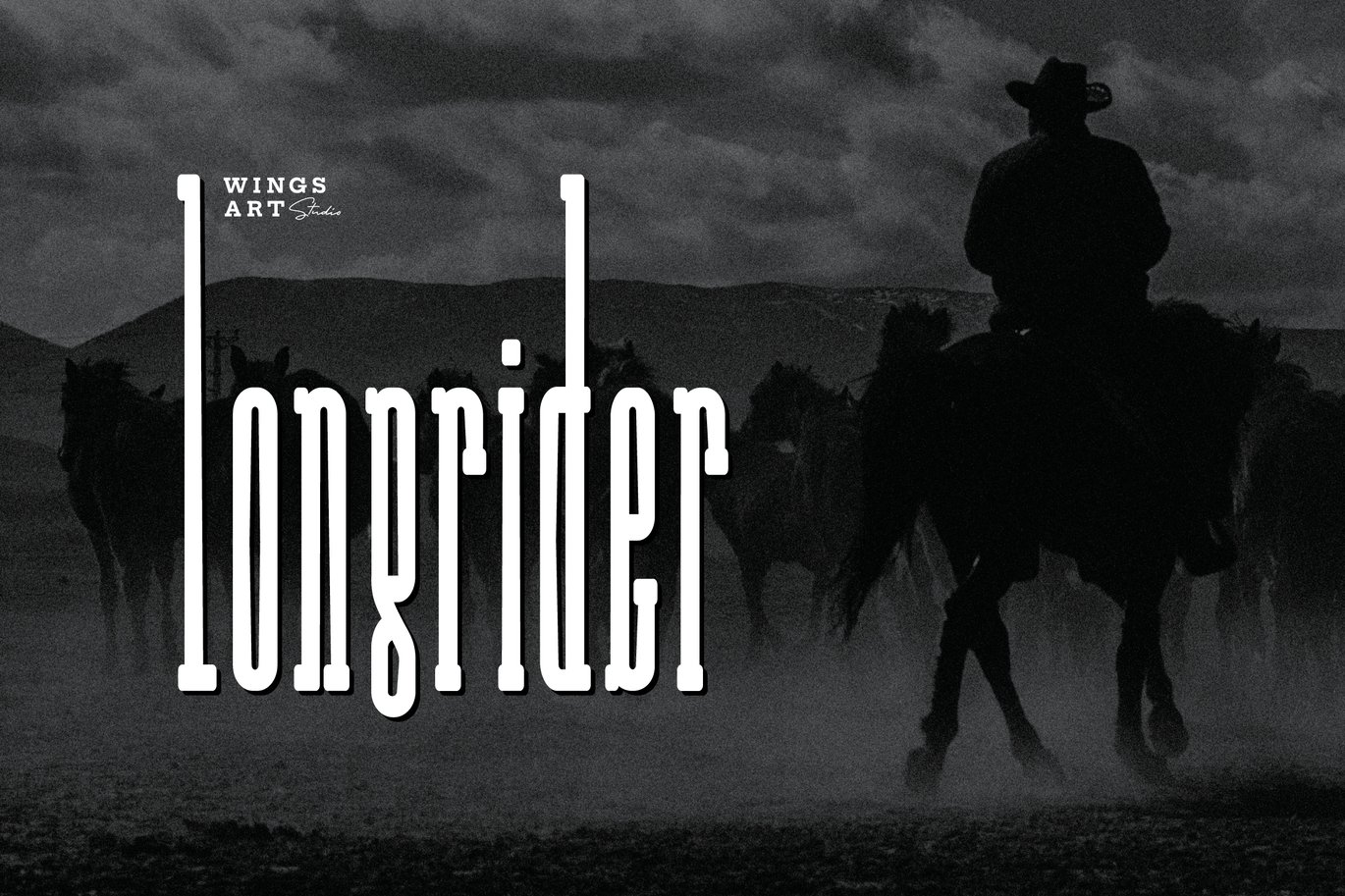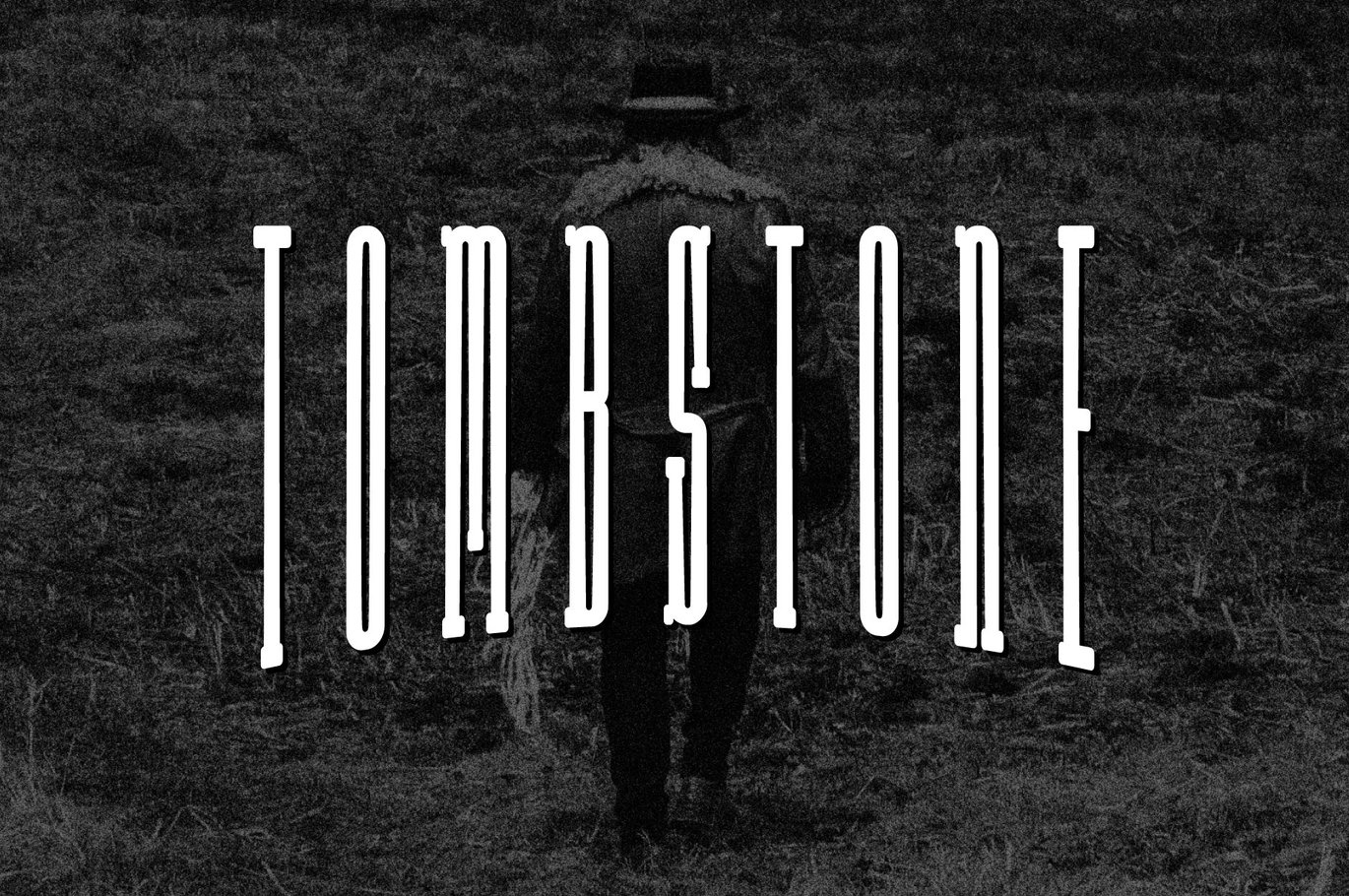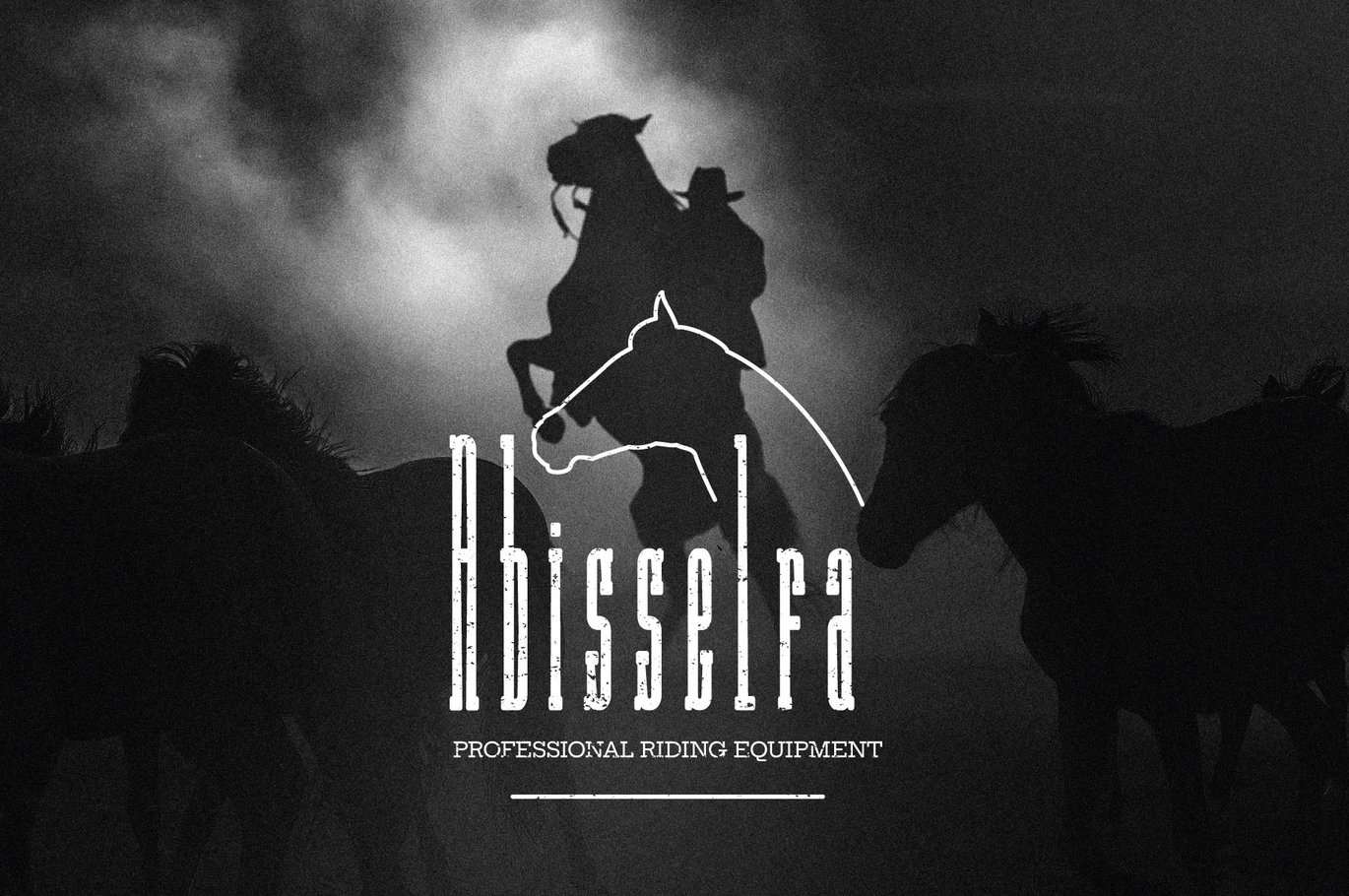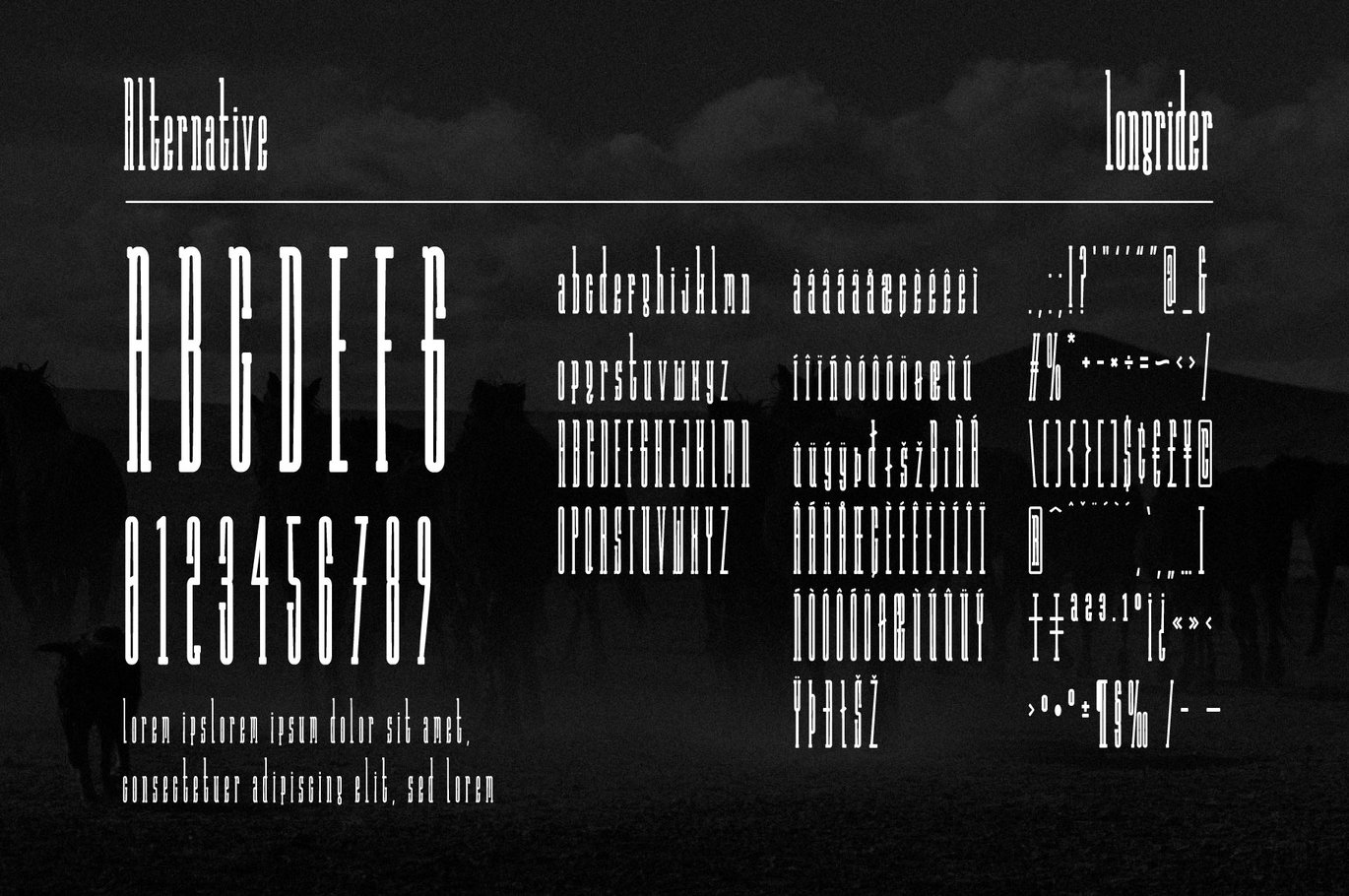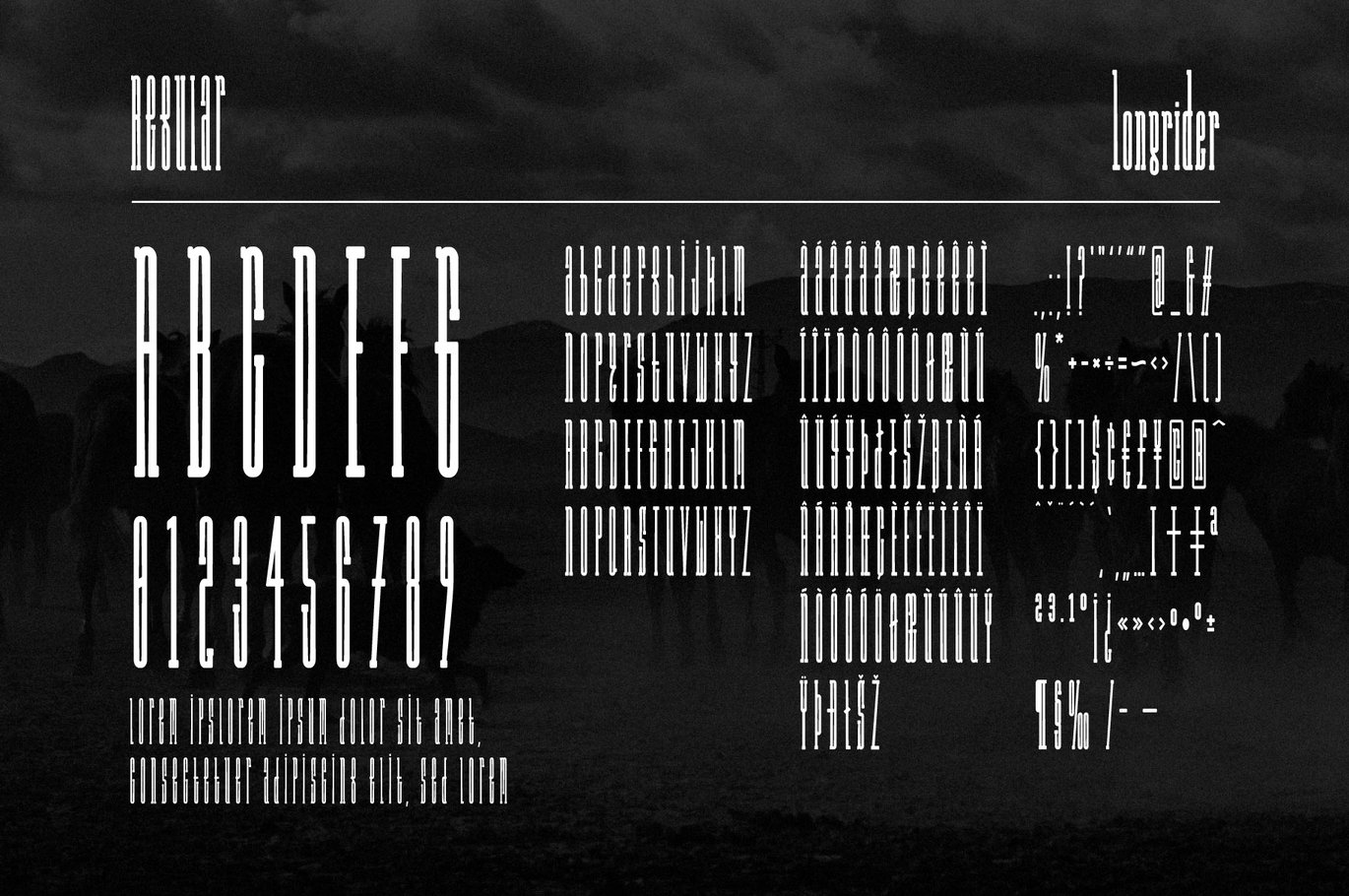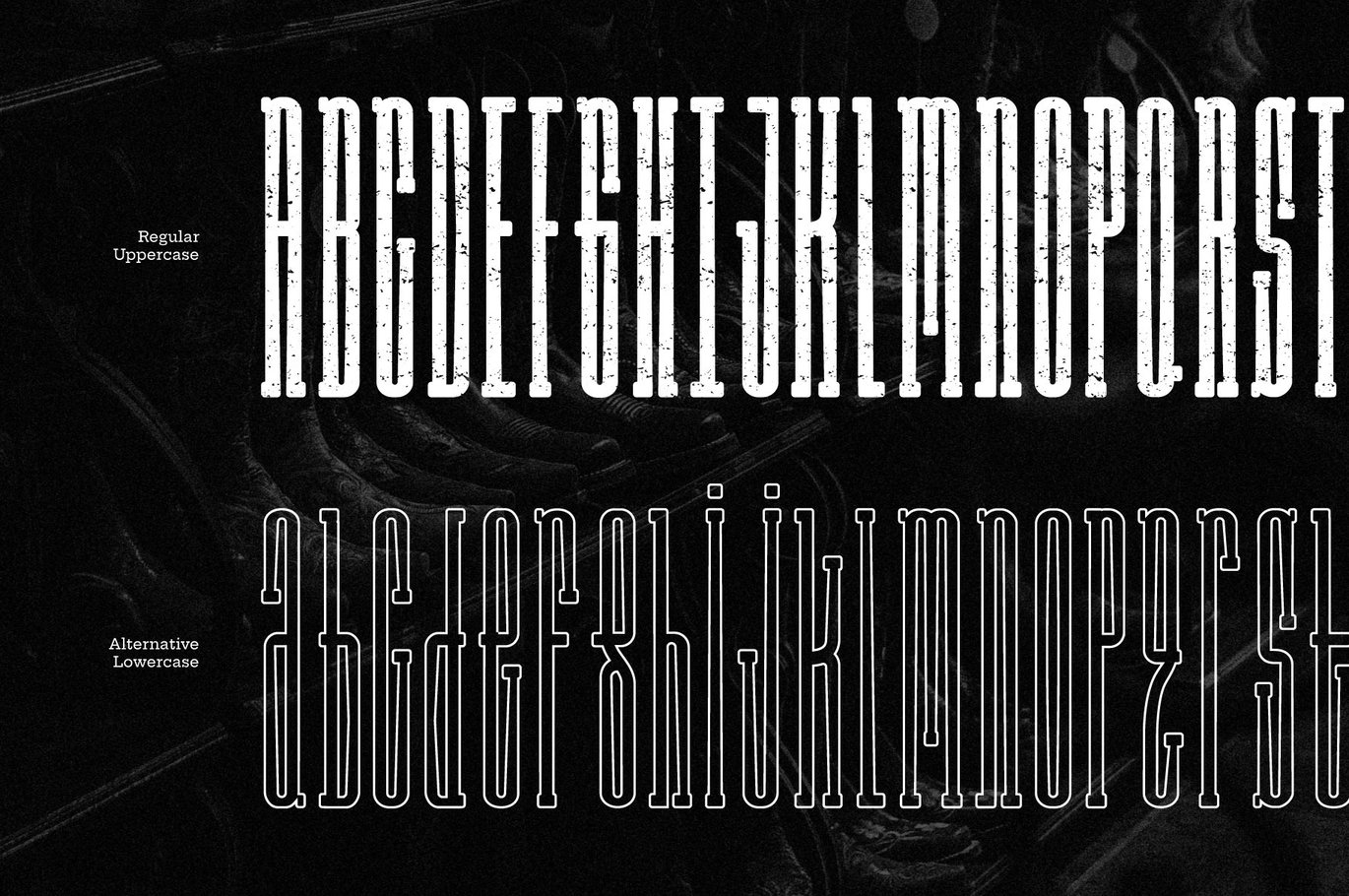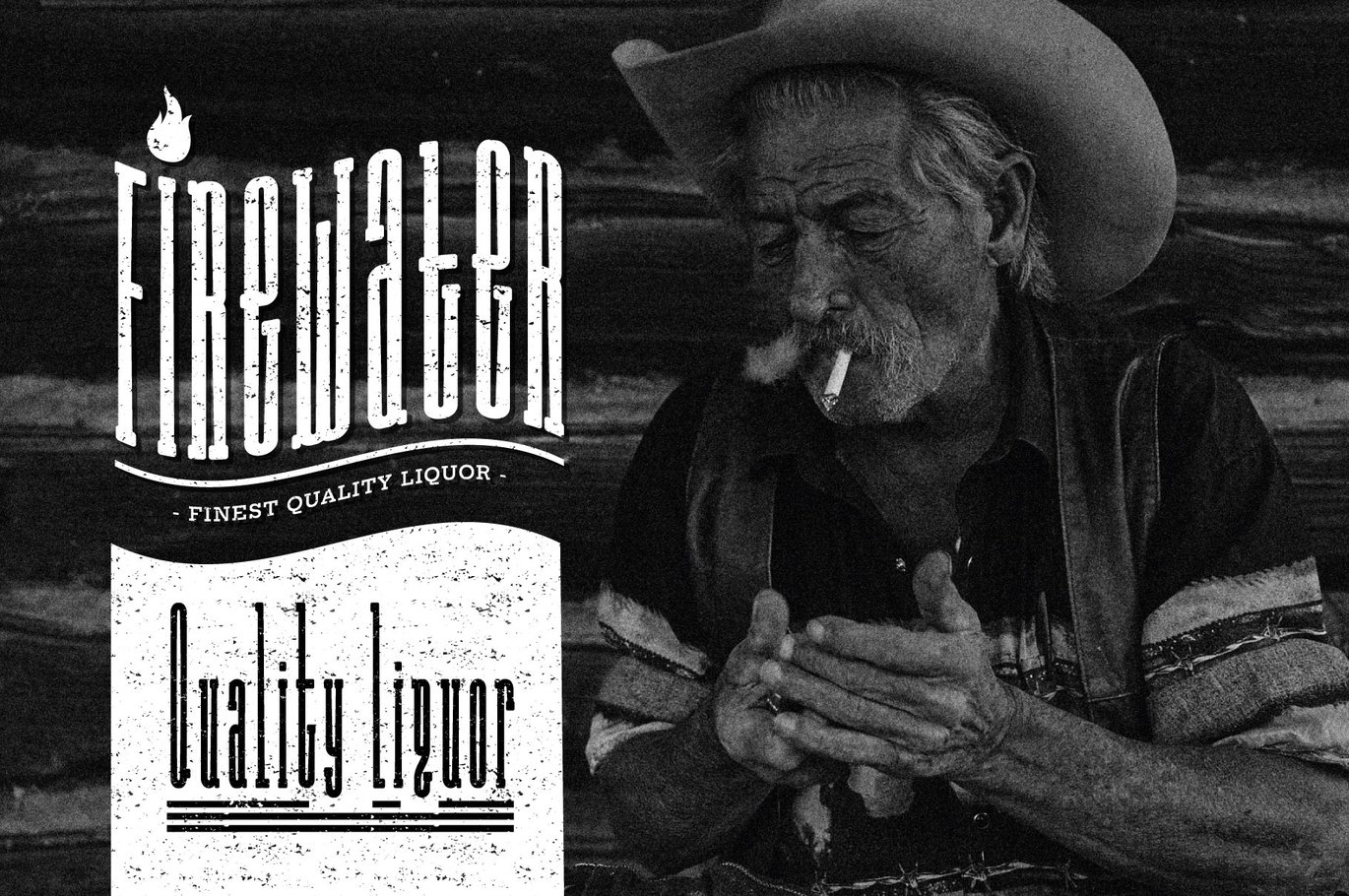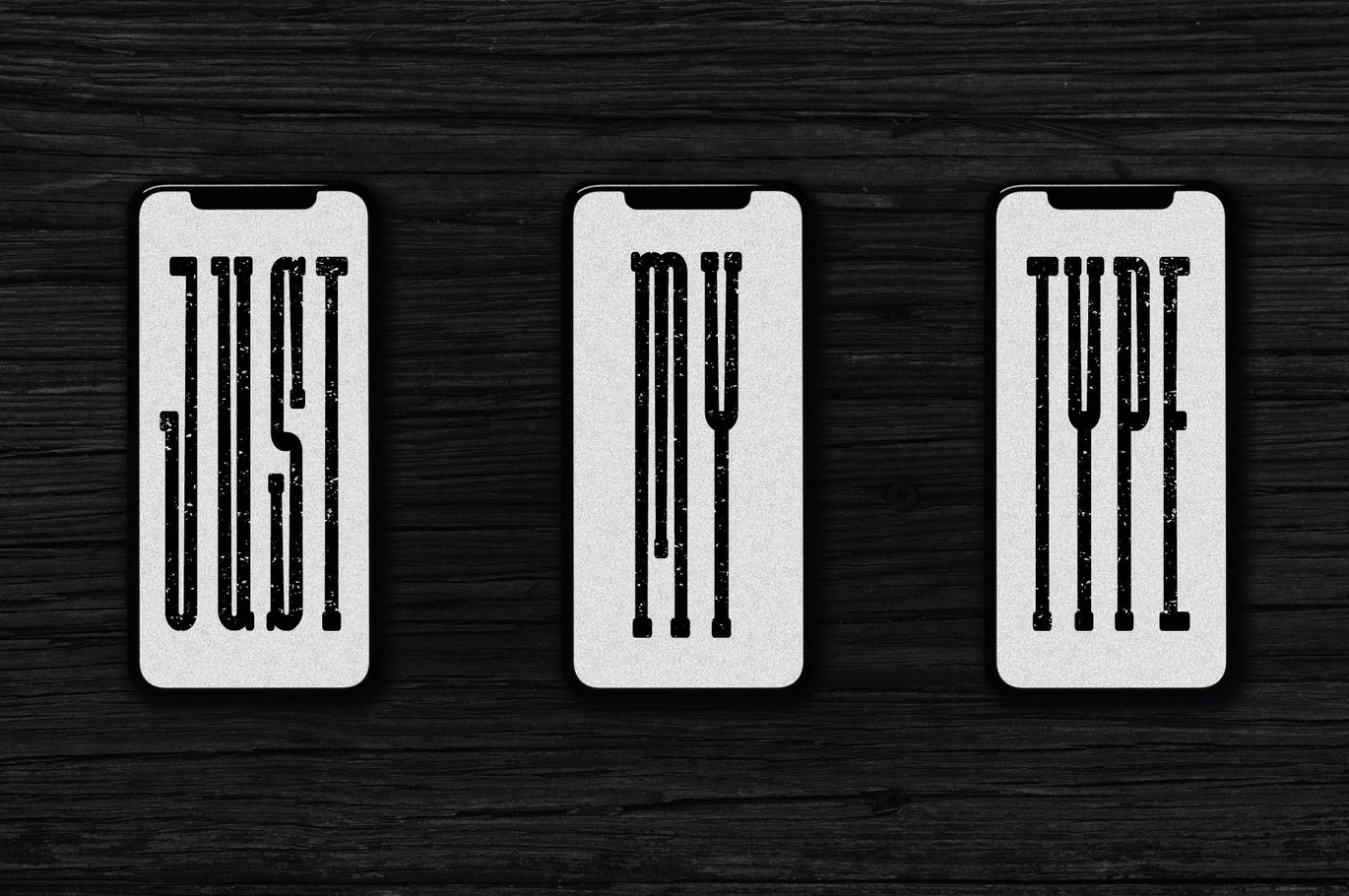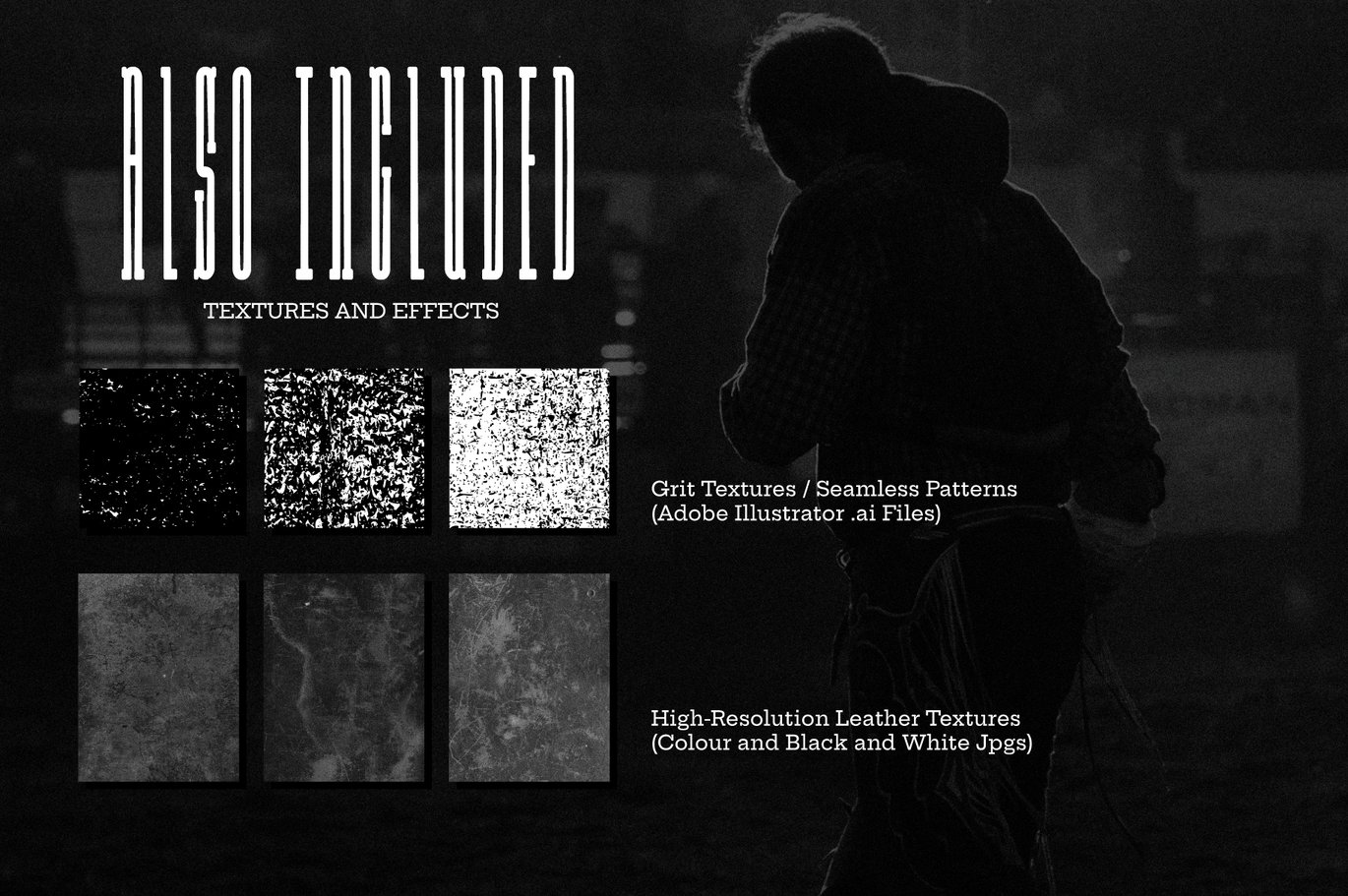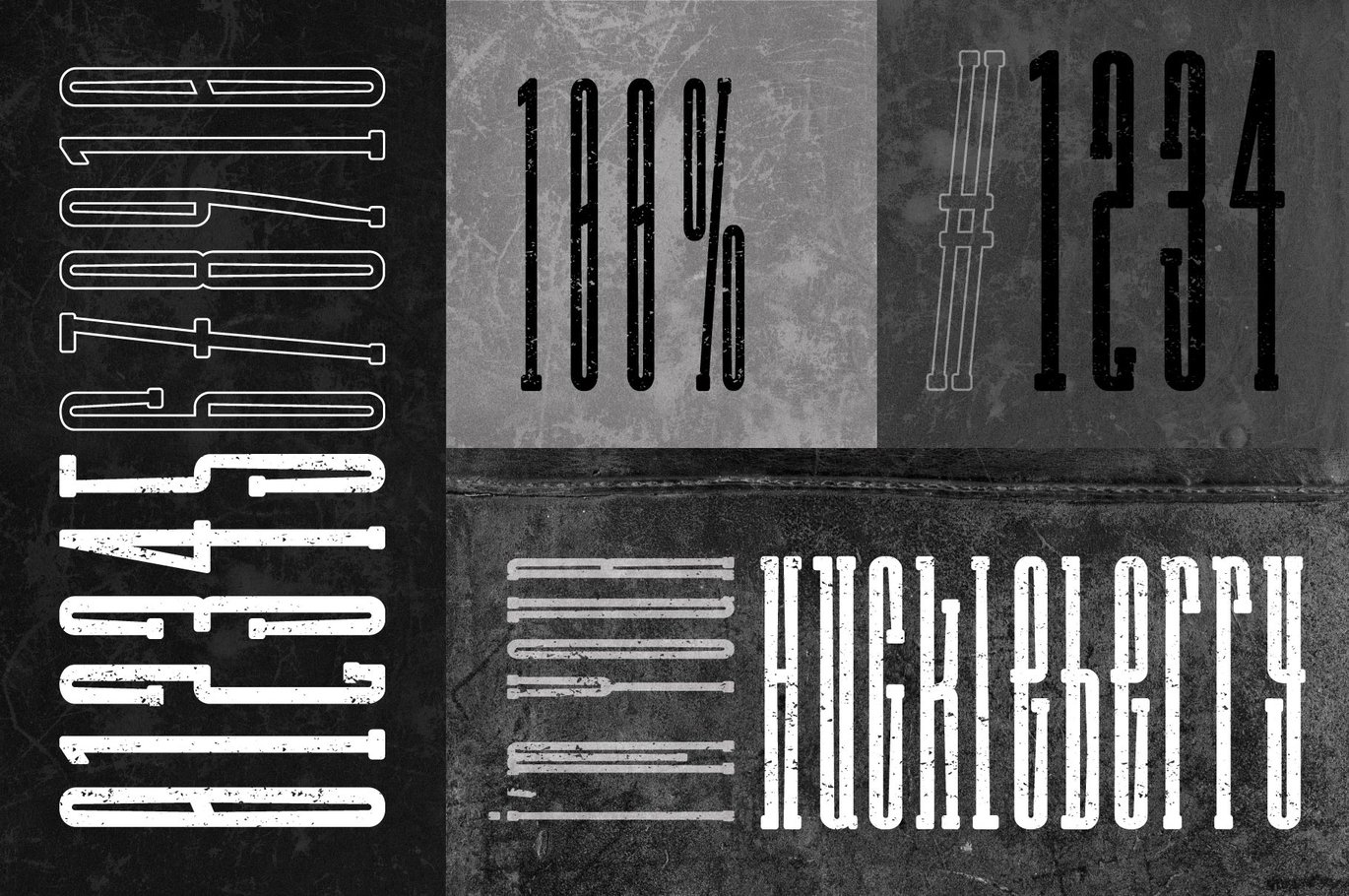
Long Rider – The Cowboy Font
Inspired by a nostalgic cowboy style this font stands tall and ready for your titles, logos and social media layouts. Particularly suited to portrait designs, this text looks great filling the screen of Instagram stories or epic widescreen productions.
- Long Rider Regular (Standard uppercase and and lower characters)
- Long Rider Alternate (Features lowercase characters at equal height)